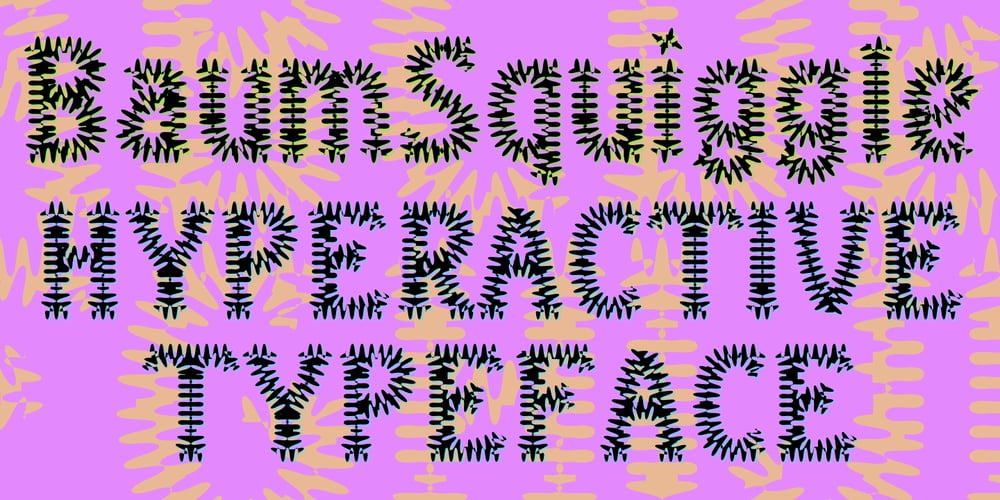
BaumSquiggle Font Family was designed by Robert Schenk and published by Ingrimayne Type. BaumSquiggle contains 1 styles and family package options. Years ago the company that developed Fontographer marketed a program called Font-o-Matic, a program that distorted fonts in various ways. 99% of what it produced was garbage, but every once in a while it would yield something interesting. Since I had designed a lot of typefaces by that time, I had lots of material to feed it and it was fun to see what it produced. BaumSquiggle is one of rare results that was interesting enough to save and clean up. The source font is Baumfuss.